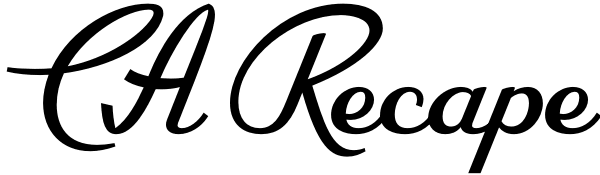
CA Recape
CA Recape is a weird and beautiful vintage script family with two styles. It’s an excellent choice for creating logotypes, headlines, signs, poster and any design that requires a custom-made feeling. The basic inspiration for CA Recape comes from...
CA Recape
CA Recape Raw